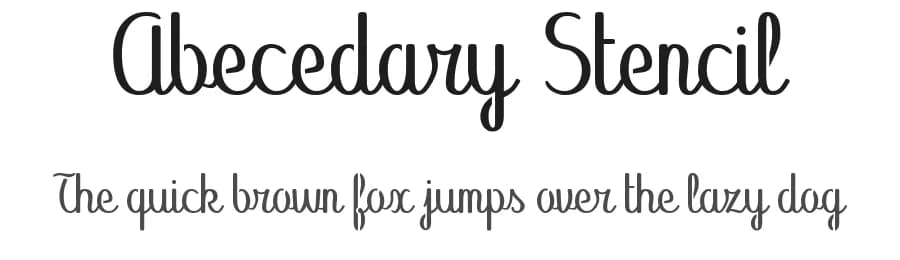
About Abecedary Stencil Font
This font is based on my Abecedary font but the intended use is to make a stencil/canvas (with a connection to the closed counter).
Some discretionary ligatures and contextual variants added (1st or last letter of word and others).
Some letters corrected
Cette fonte est basée sur ma fonte Abecedary mais destinée à un usage différent, par exemple pour créer un canevas à appliquer sur une surface pour y peindre des lettres. Pour cela, les parties fermées (dans 'o', par exemple) sont connectées aux parties ouvertes.
Ajouté des ligatures et des variantes contextuelles (début de mot, fin de motn etc.)
Abecedary Stencil Font